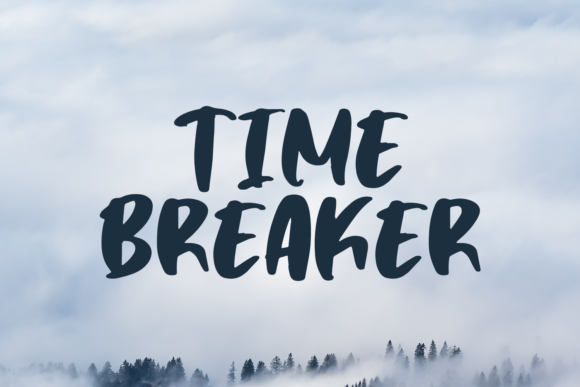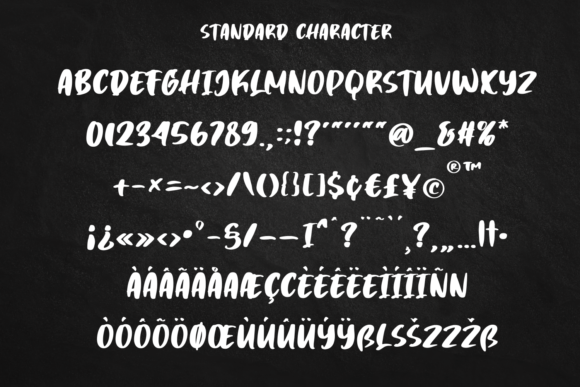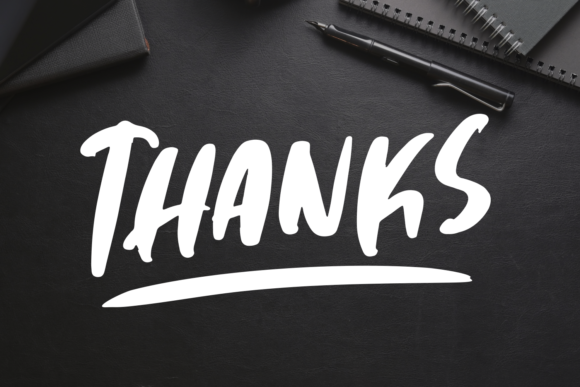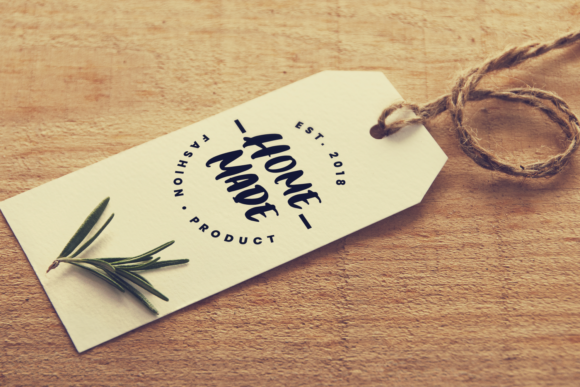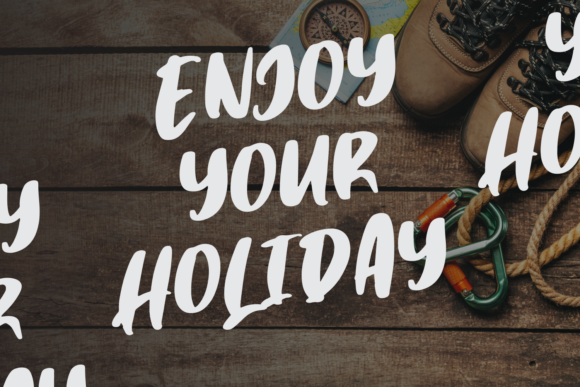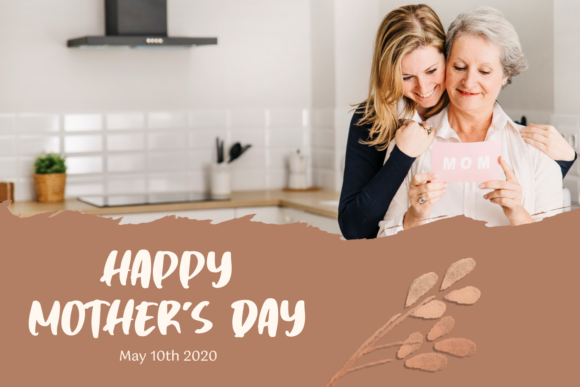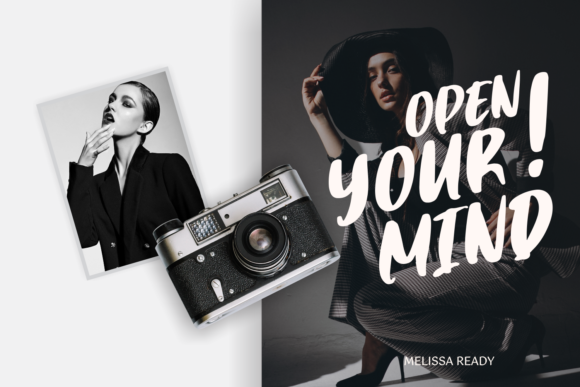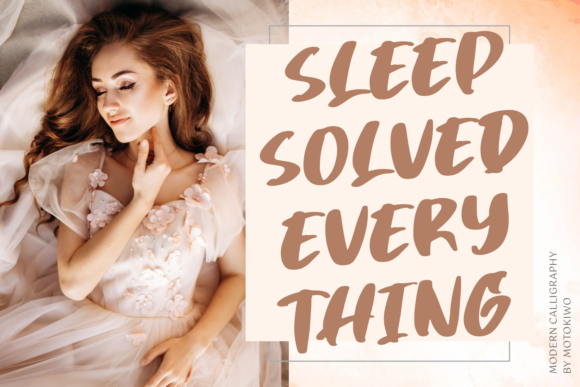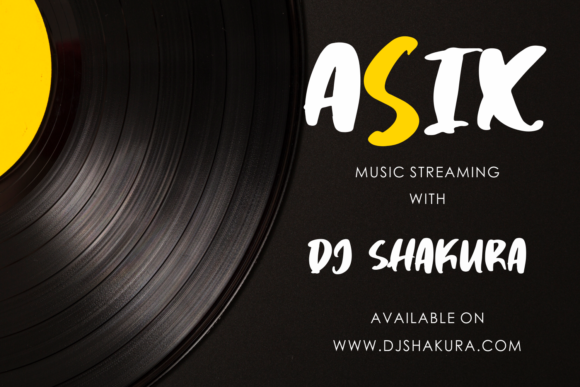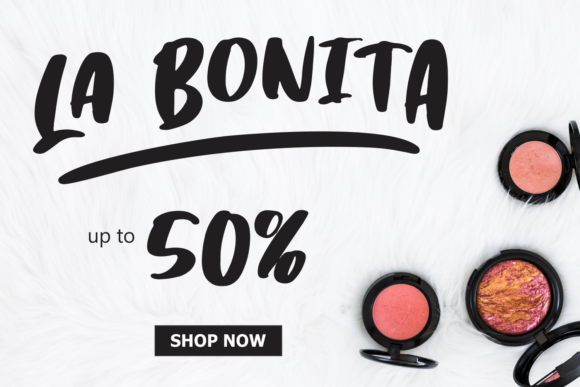
Time Breaker Font
About Time Breaker Font
Time Breaker is a bold handwritten font, crafted from a classic brush with stylish and casual feel. It’s great for branding, logos, headlines, posters, title, and any crafting project that requires a personalized look!